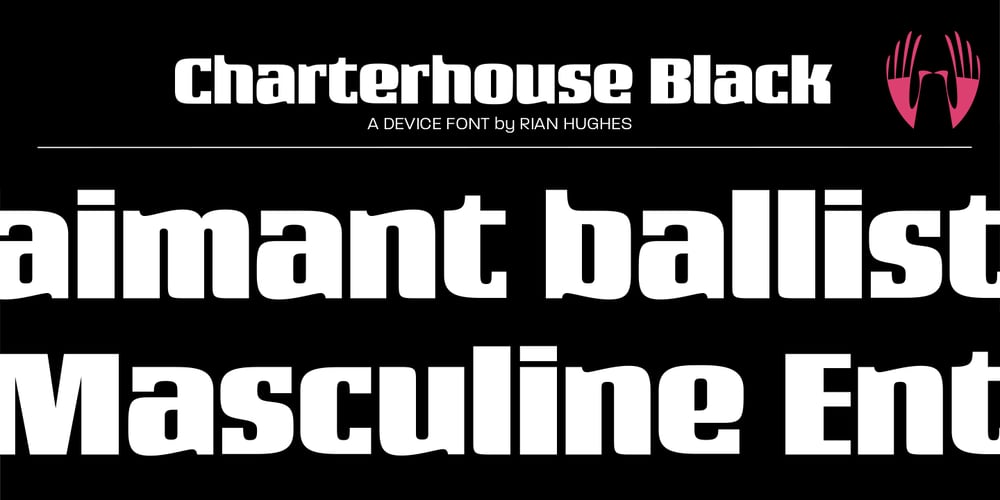
Charterhouse Font Family was designed by Rian Hughes and published by Device. Charterhouse contains 1 styles and family package options. A heavy obround sans with a high x-height and unusual lower-case spurs that flow up and into the bowl. This curve is mirrored in the ascenders. The alternates provide for closer, denser setting.